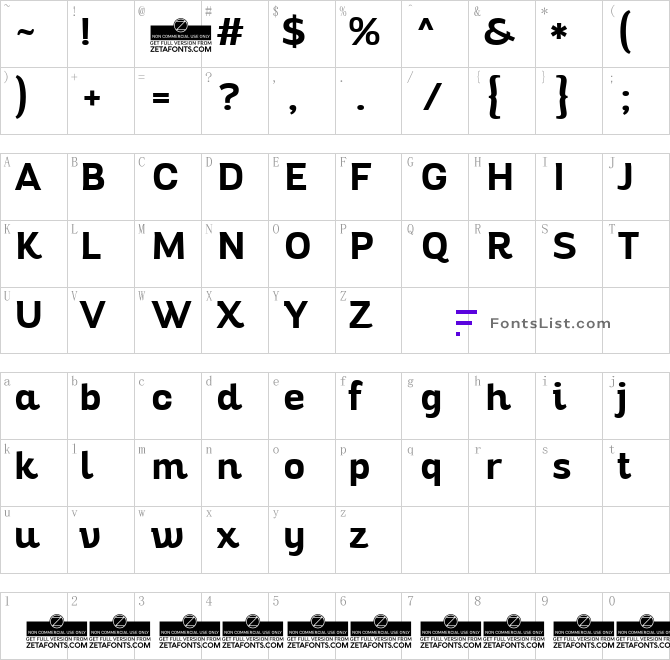
- Font Name:Altair
- Full Name:Altair Bold
Altair-Bold.ttf is a very beautiful artistic font, Altair-Bold.ttf is widely used in the design and printing of various books and pictures,Altair-Bold.ttf has a strong visual impact,Altair-Bold.ttf is a commonly used font in newspapers, magazines and books, and is used in posters, e-commerce Poster design, store design, logo design, font design and other fields.Altair-Bold.